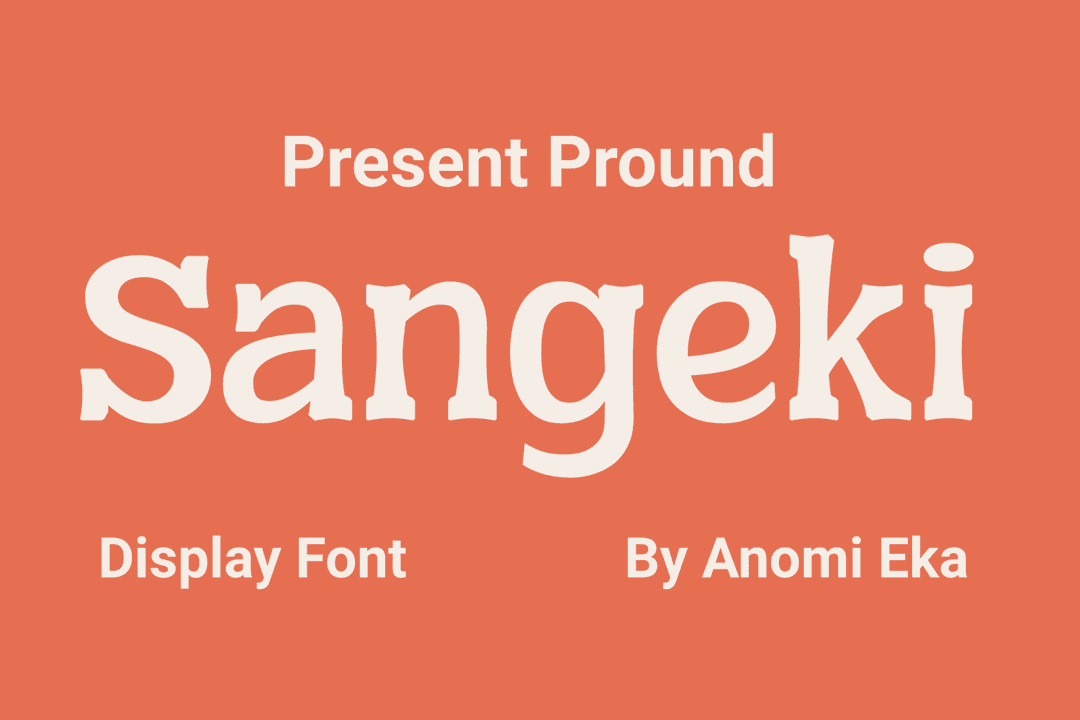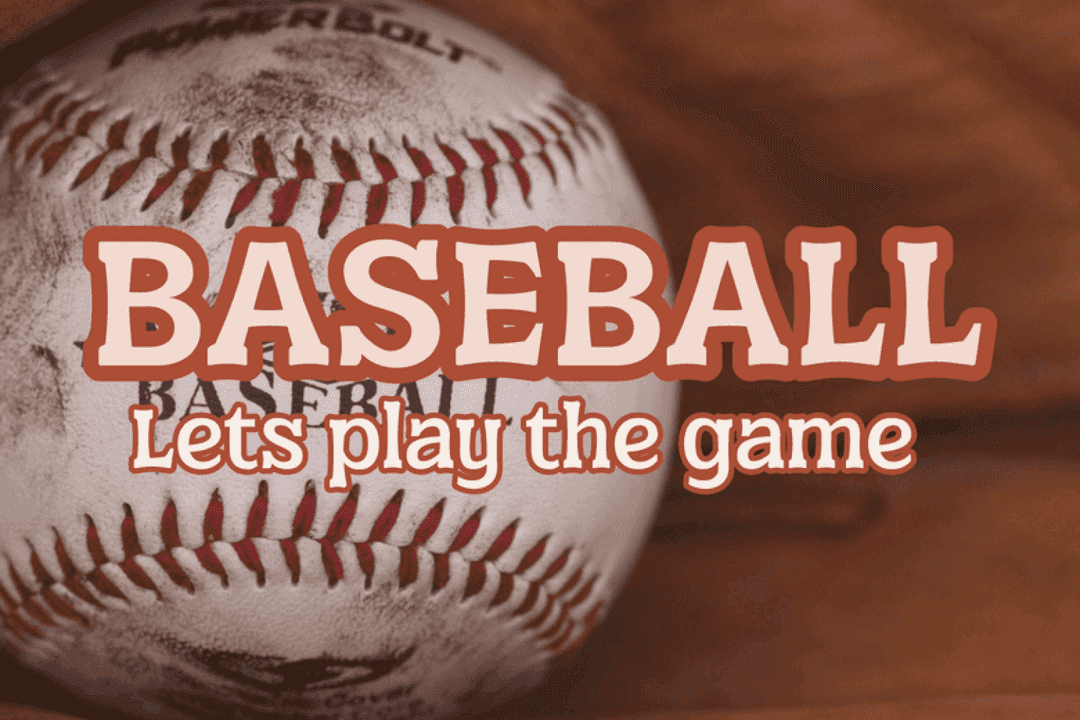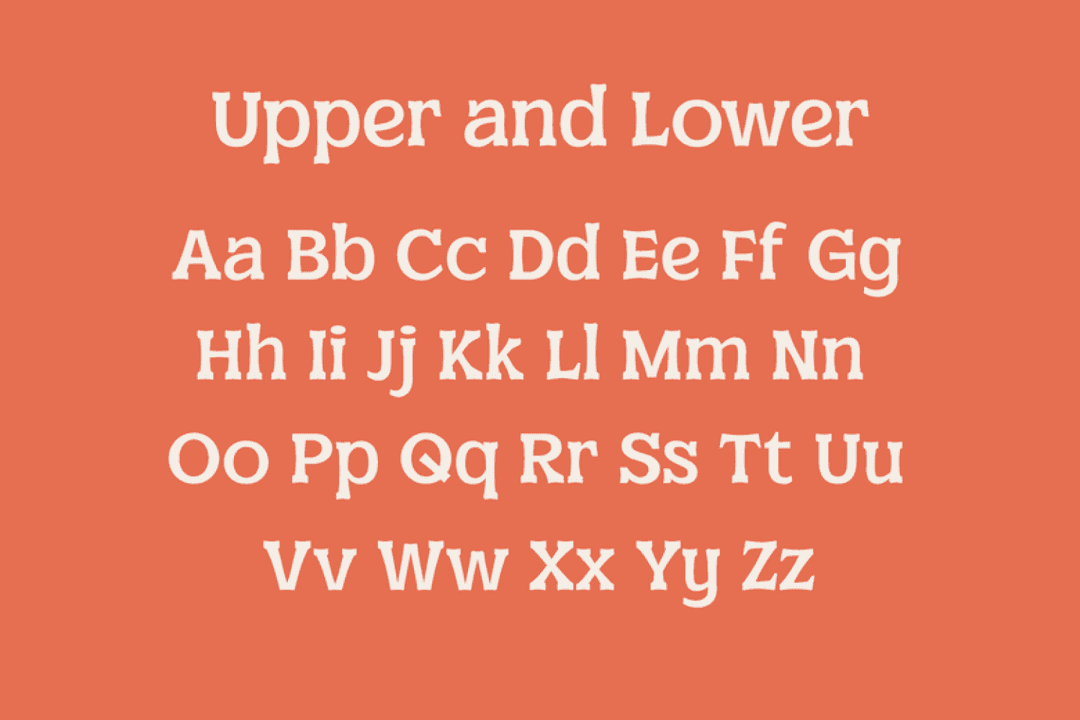
Sangeki is an elegant serif display font. Carefully created to bring all of your creative endeavors to the foreground, this font can transform them all! Perfect for labels, logotypes and packaging designs alike.